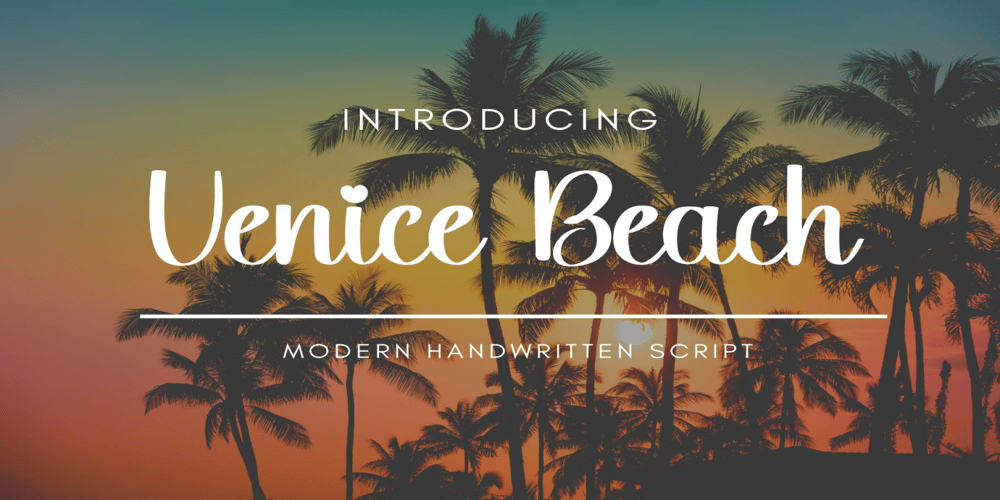
Venice beach Font Family was designed by Nancy Mazzei and published by Adita Fonts. Venice beach contains 1 styles and family package options. Venice beach is a simple handwritten font. This versatile font has a wide spectrum of applications ranging from greeting cards to headlines and is guaranteed to add a simple and natural feel to your next project!